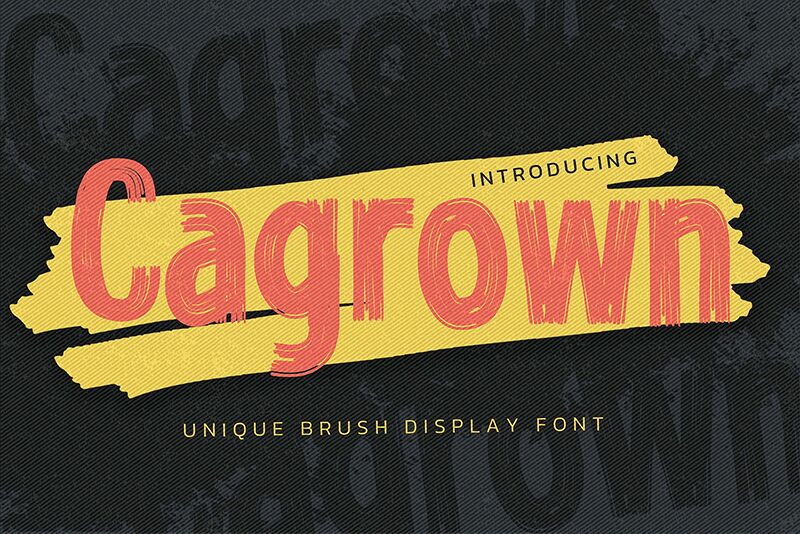
Cagrown
Cagrown font is a free brush typeface by Gassstype built with handcrafted bold characters. The black dynamic strokes have a textured effect, and their artistic vibe will add an expressive modern mood to your projects. This is the font of choice for creative jobs that lack the special eye-catching appeal that captivates viewers.
Cagrown is suitable for branding or visualizing advertising poster designs for fashion collections or art events. Other usages include designing worthy quotes, packaging labels, postcards, invitations, greeting cards, book covers, social media posts and event flyers.